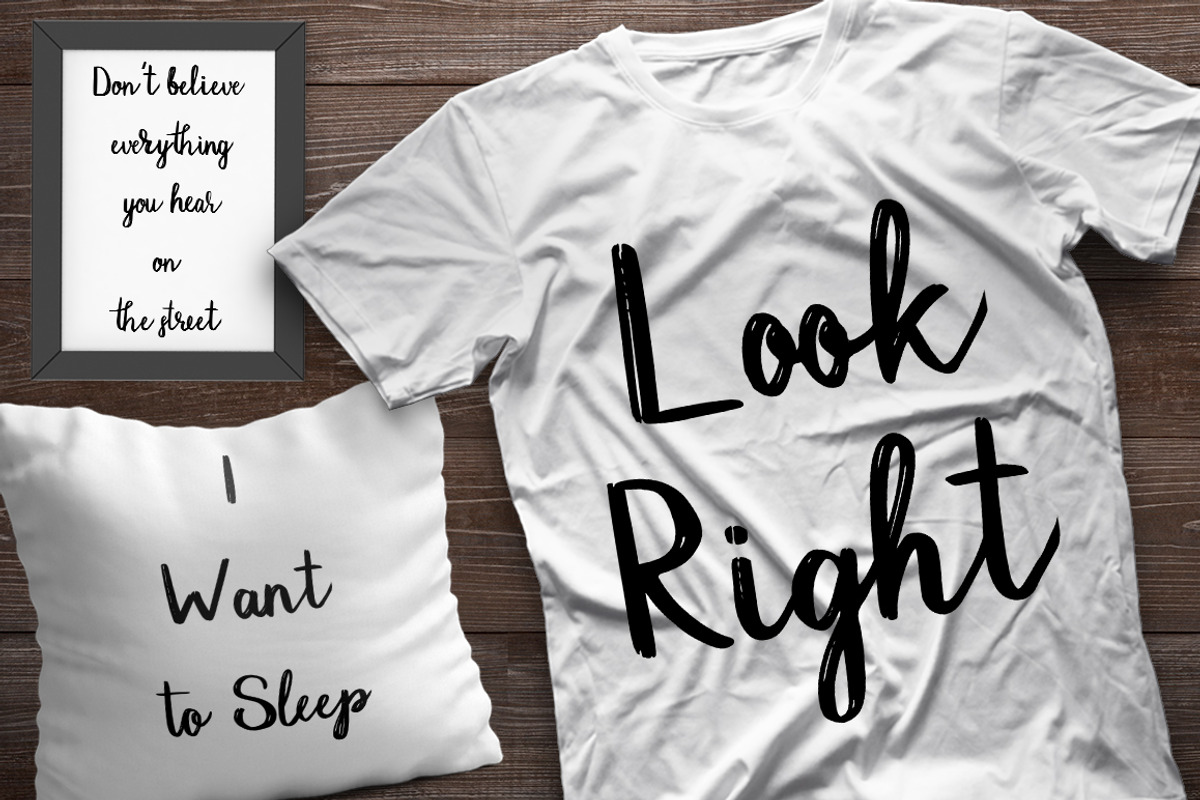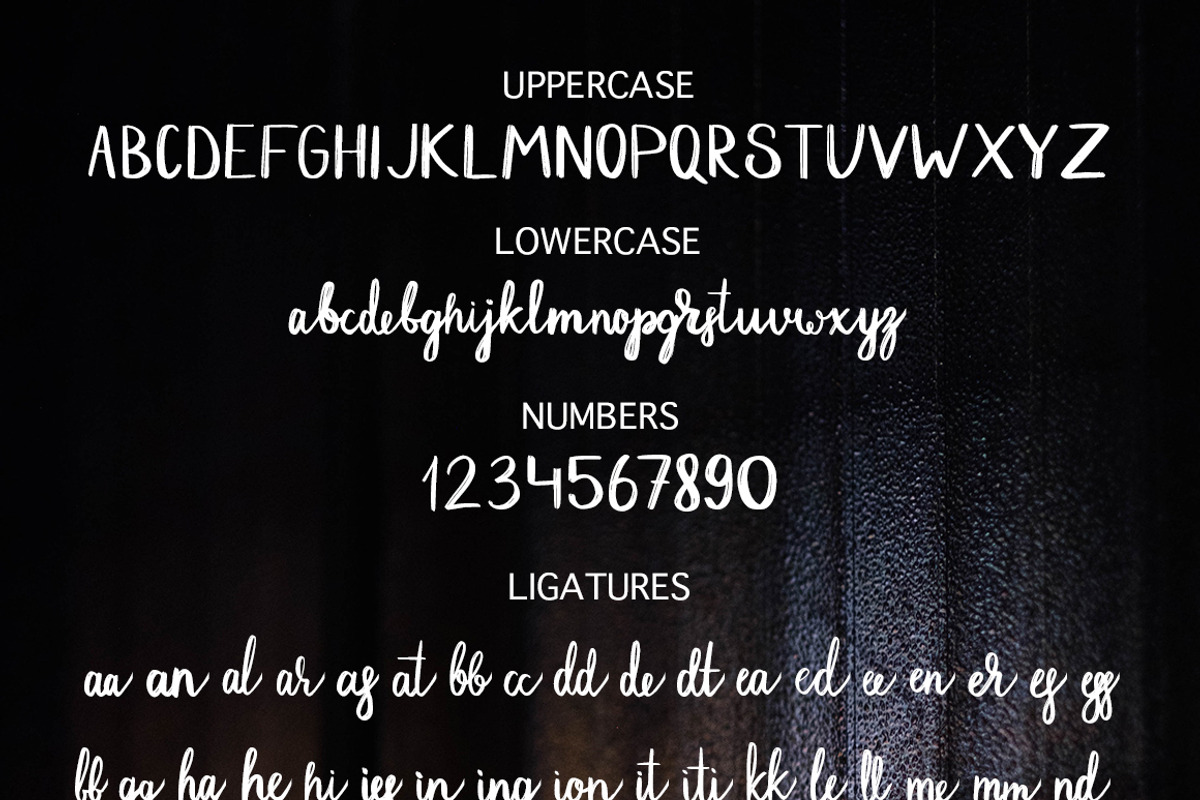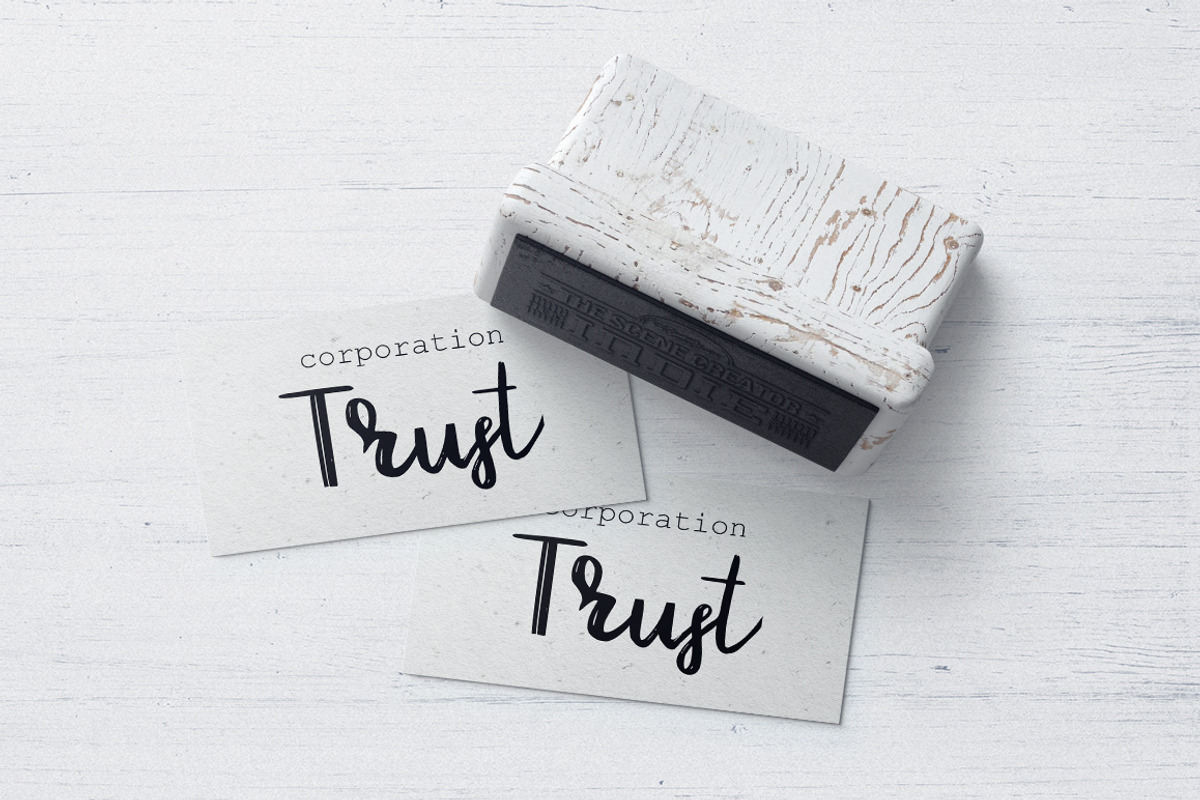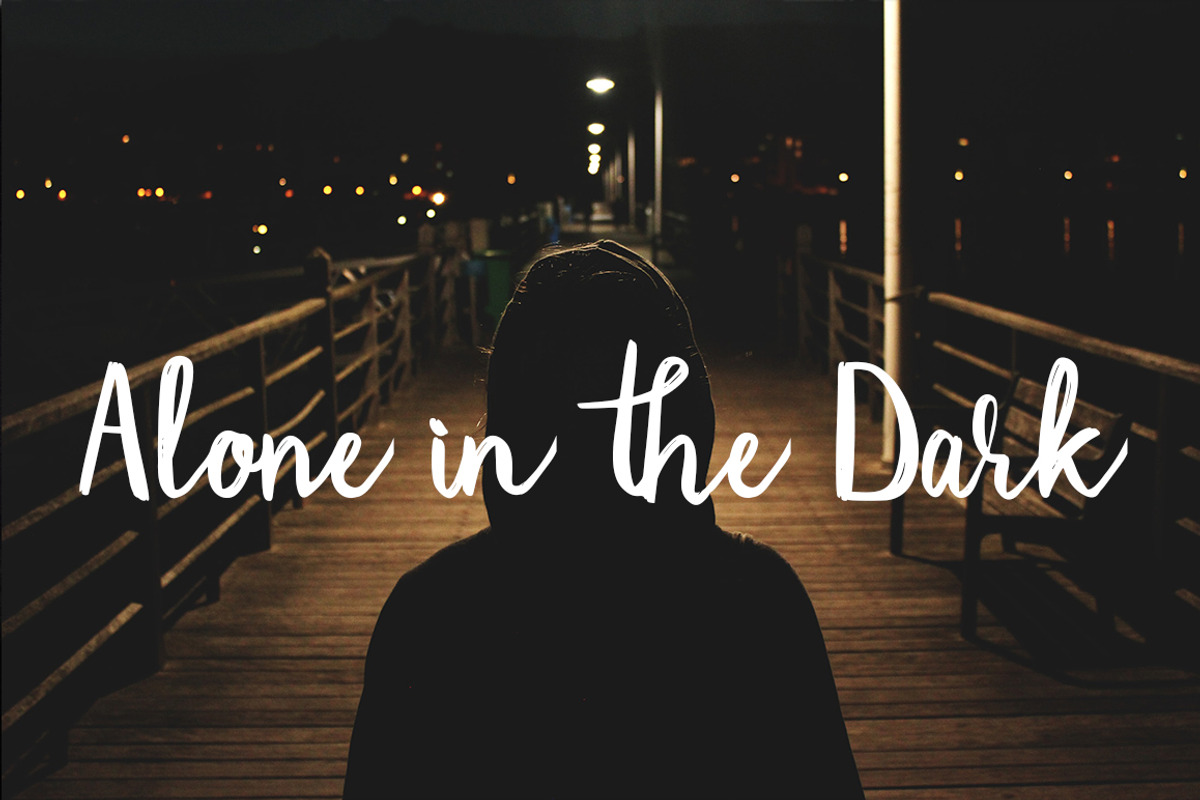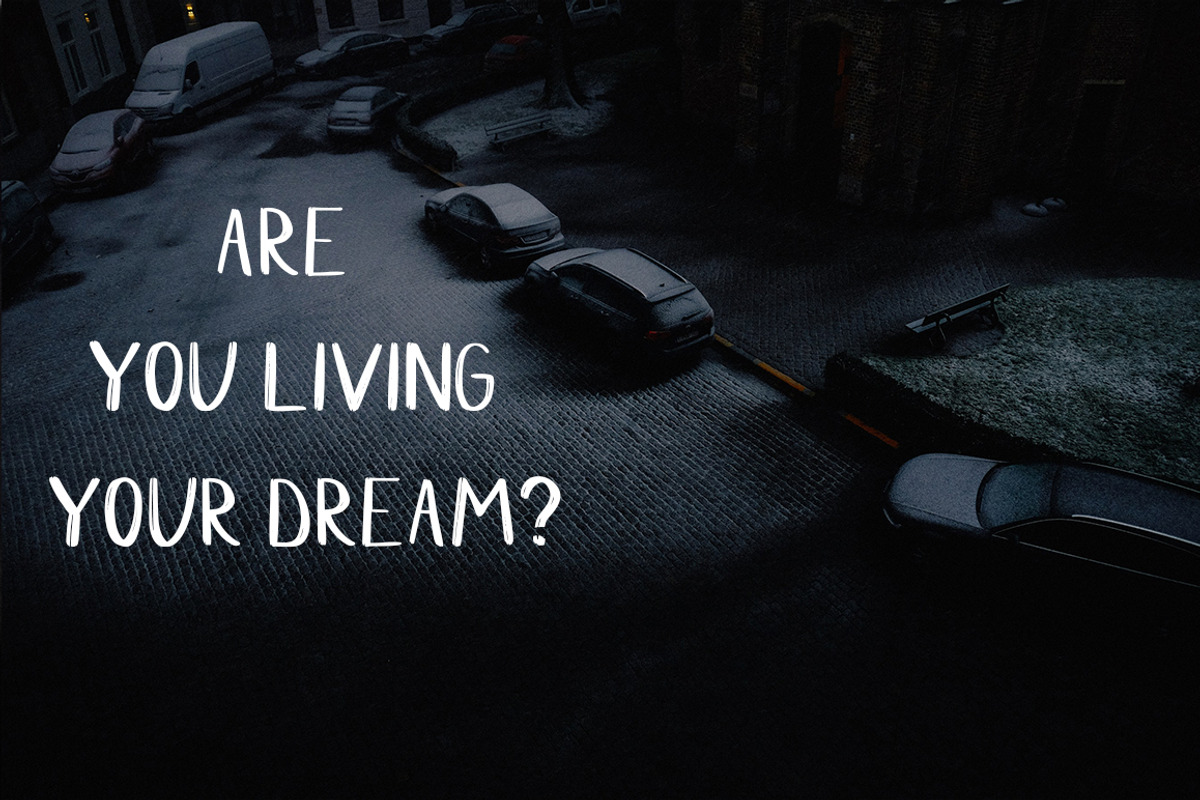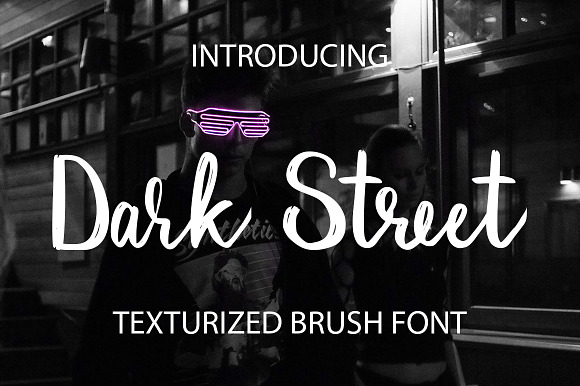
Dark Street - script font
Dark Street fill the street. It looks great both in lowercase & uppercase and it has tons of characters to choose from (all of those are PUA encoded - which means you can access them from any software you are using).
Main things that you need to know about Dark Street:
it has full set of lowercase alternates (you'll have twice as much fun!) all most popular ligatures are included too this font is PUA encode - that means that you will be able to access all characters from any application. Instruction of how to use PUA glyphs is included it has language support for most of european languages (please test your language in the test window below, if some characters that you need are not there - please do not hesitate to contact me and I’ll do my best to add them)
Dark Street - script font by Gennadi Digital Studio fits naturally into Branding, posters, packaging, typography.